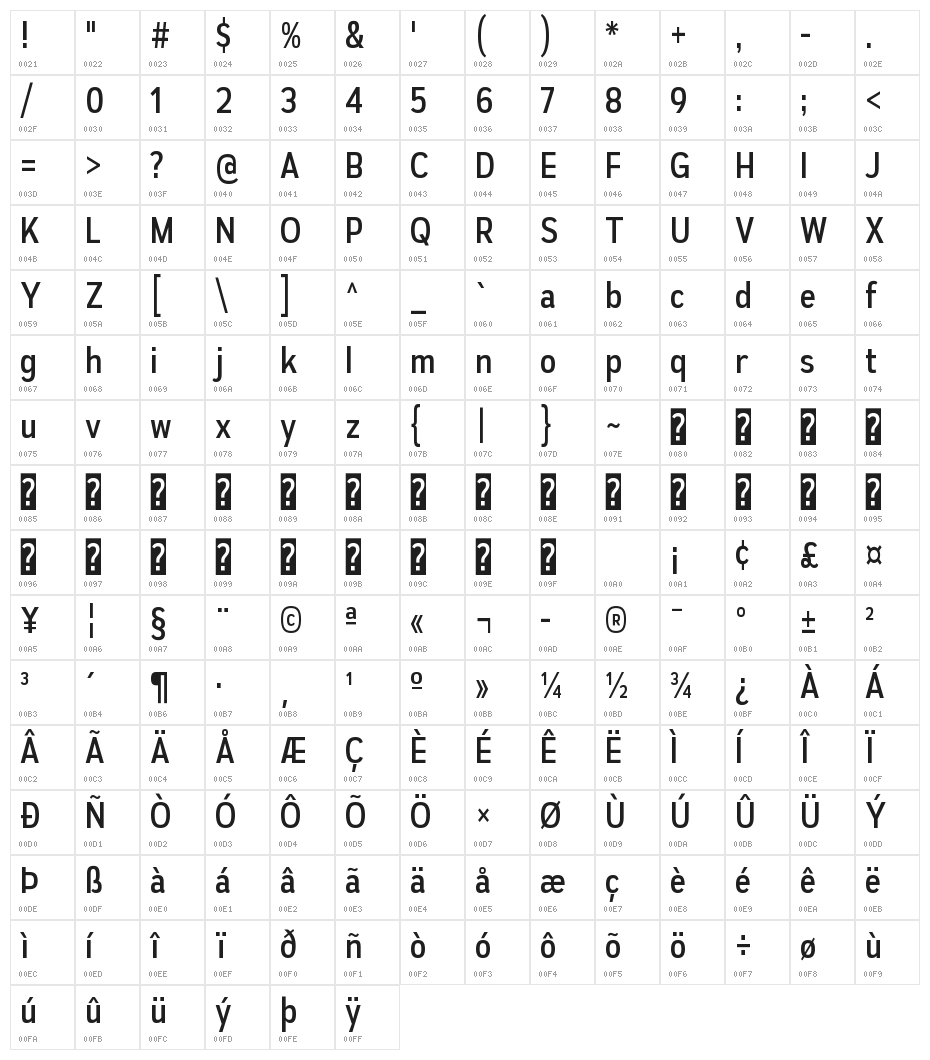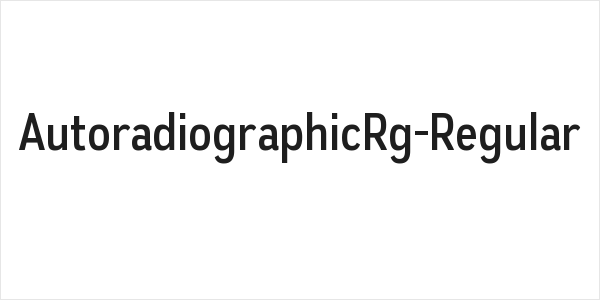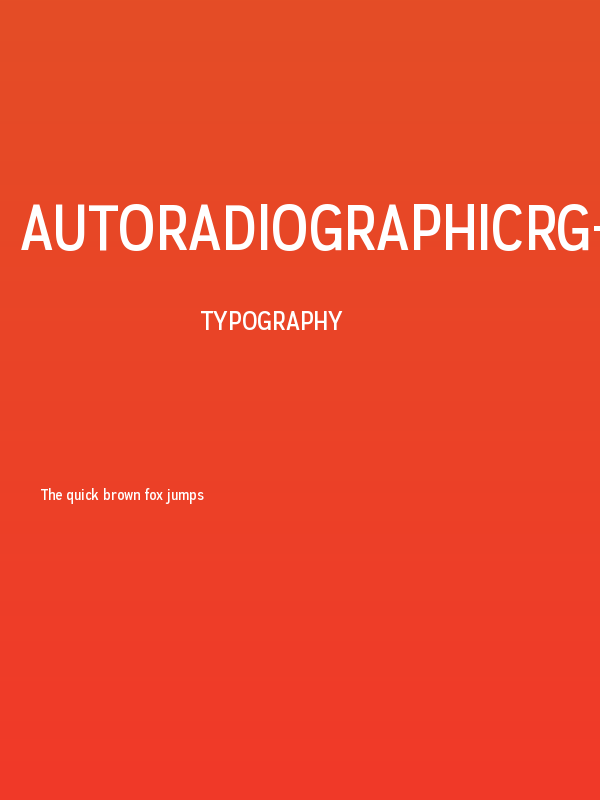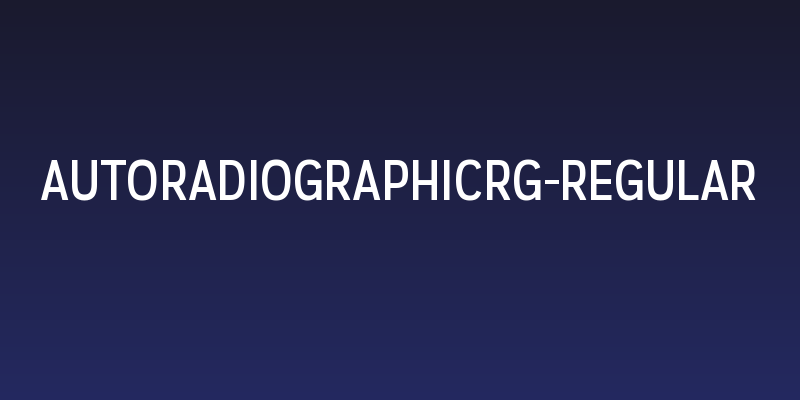
AutoradiographicRg-Regular Font
AutoradiographicRg-Regular Description
This font features a clean and modern sans-serif style, characterized by its uniform stroke width and lack of serifs. The uppercase and lowercase letters are well-proportioned, with a slightly condensed appearance that maintains readability. The numerals are clear and distinct, matching the overall geometric aesthetic of the typeface. Special characters are included, offering a comprehensive set for various uses. The design is straightforward, making it suitable for both digital and print media, where clarity and simplicity are paramount.
| Proposed Projects | Ideal for branding, web design, editorial layouts, and corporate materials where a modern and clean look is desired. |